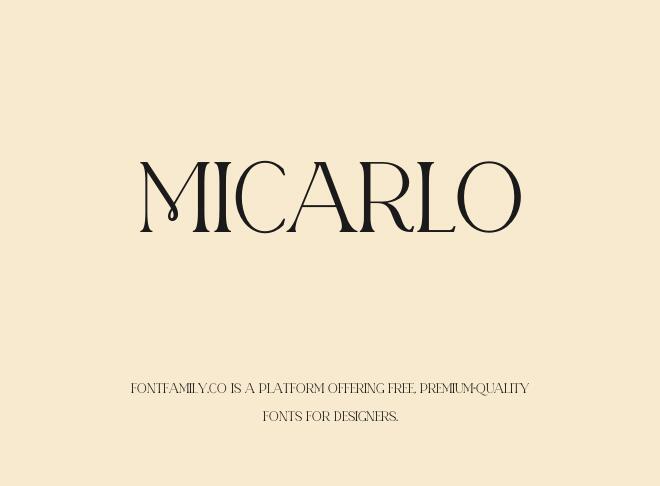
Micarlo Font
Introducing Micarlo Font - a modern and elegant typeface that captures the essence of sophistication and simplicity. Designed by Carlito Way in 2018, Micarlo Font embodies a unique blend of modernity and elegance, making it perfect for a wide array of design projects. Its clean lines and subtle curves provide a refreshing, contemporary aesthetic that stands out in logos, headlines, and branding. Its versatility also extends to web design and print media, adding a touch of class to any creative work. Compared to other fonts, Micarlo Font holds its own with its distinct character and style. It's a great choice for designers looking for a modern, yet classic look. Its free personal use license makes it accessible to anyone eager to bring a touch of elegance to their design work.